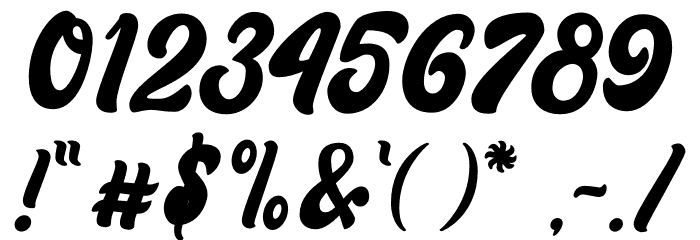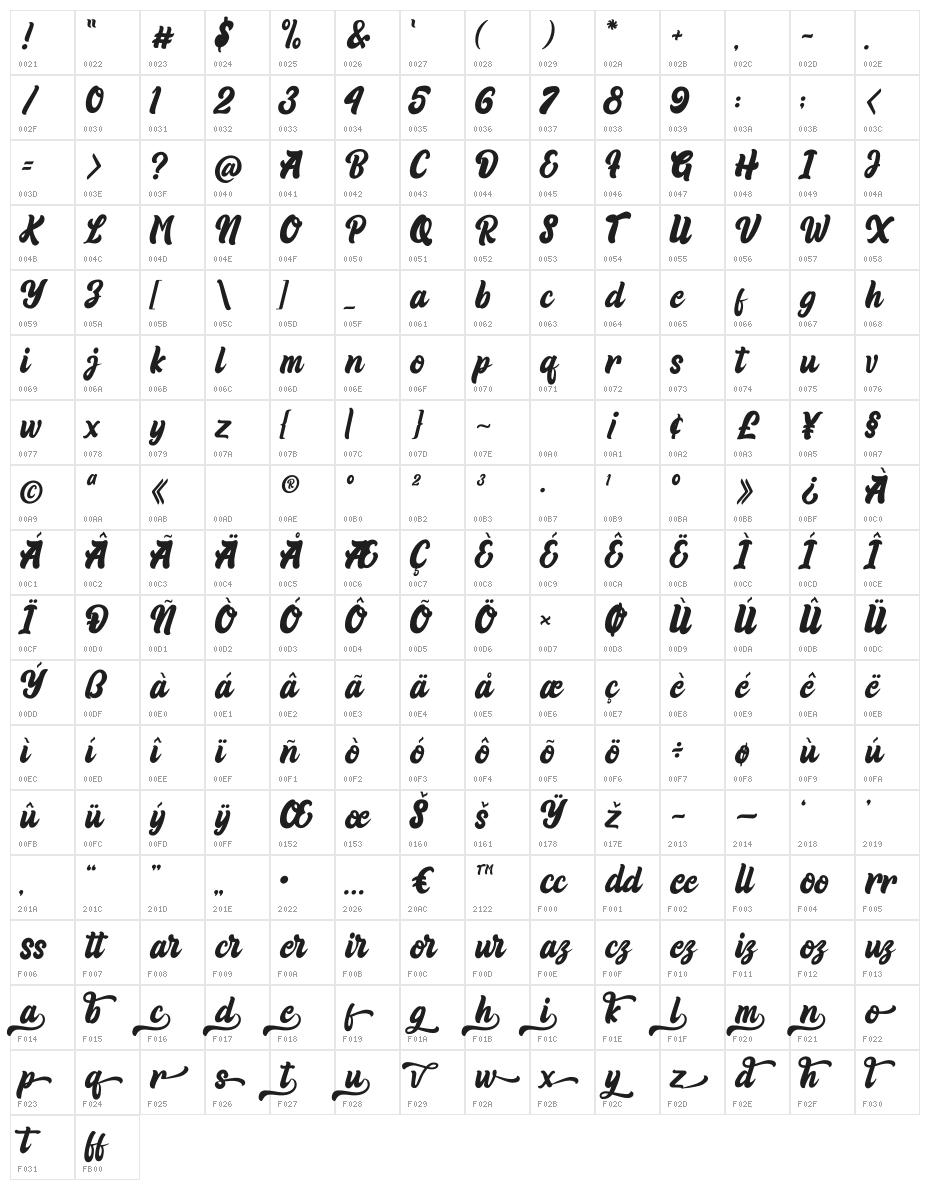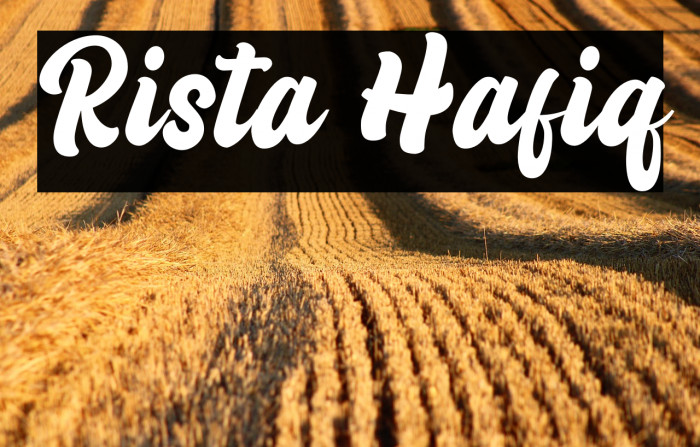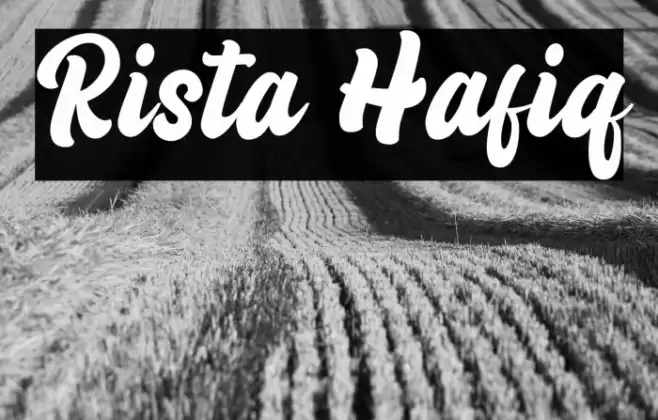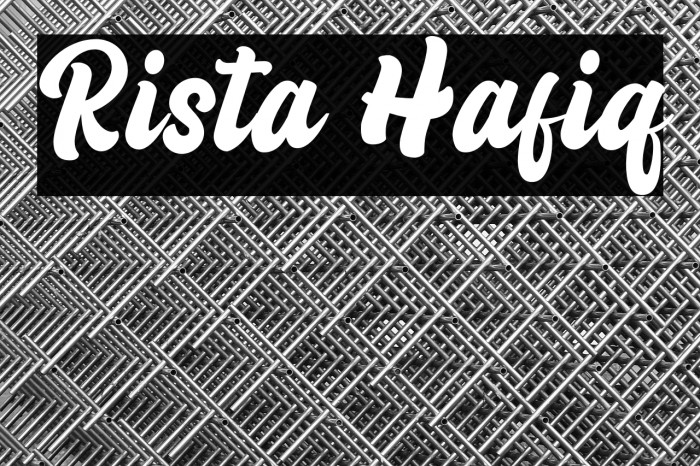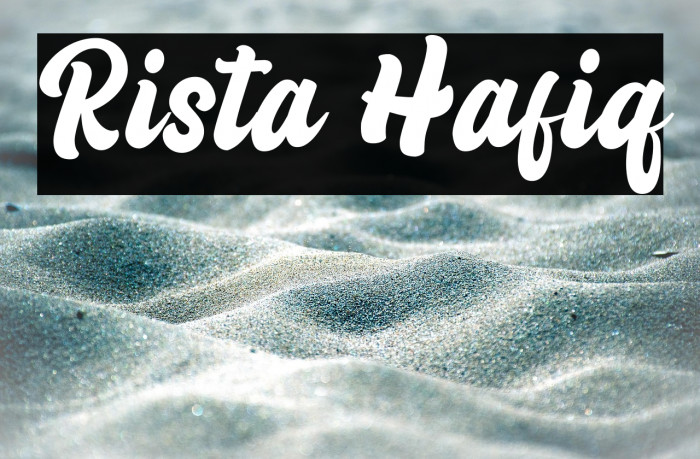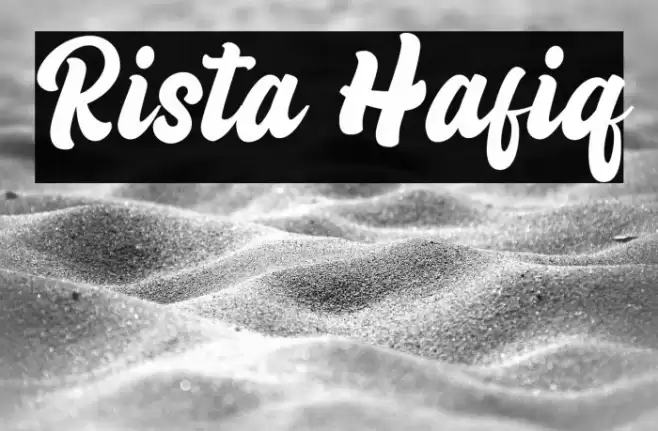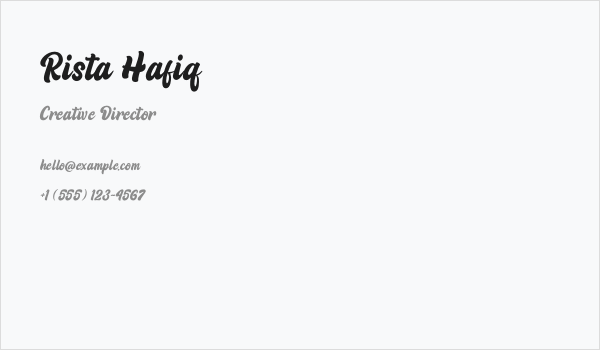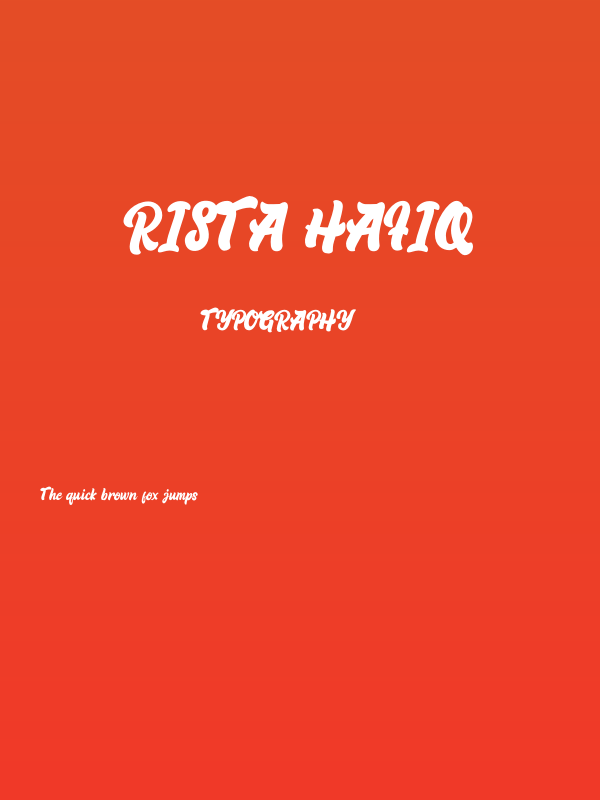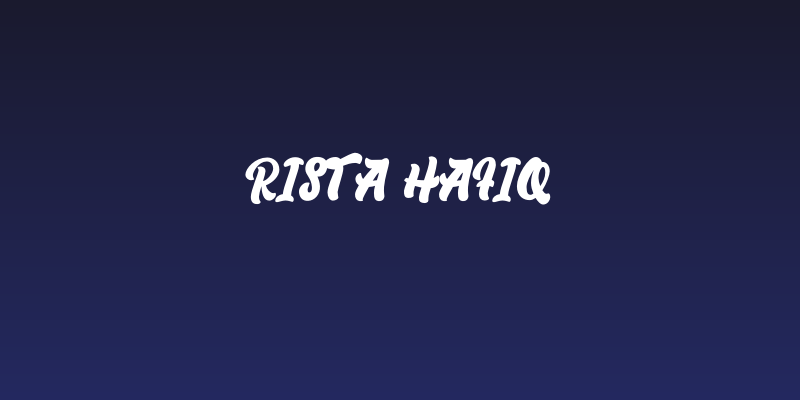
Rista Hafiq Font
Rista Hafiq Description
This font features a bold and expressive script style with a flowing, cursive design. The characters are interconnected, giving a sense of continuity and fluidity. The uppercase letters are prominent and slightly larger than the lowercase, which are more rounded and compact. The numbers and special characters maintain the same boldness and style, ensuring consistency throughout. The font's strokes are thick, providing a strong visual impact, while the overall design is playful and dynamic, making it suitable for creative and informal applications.